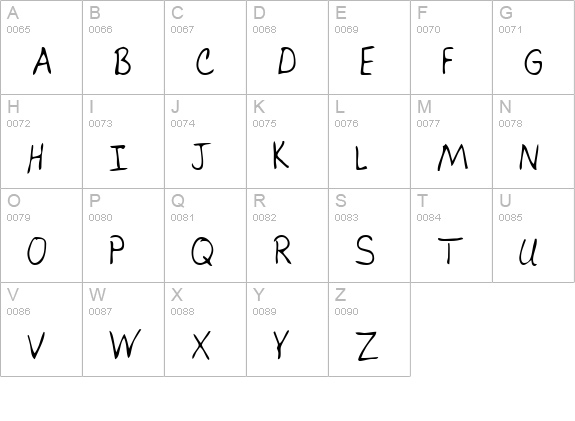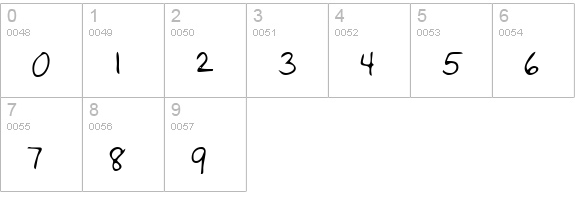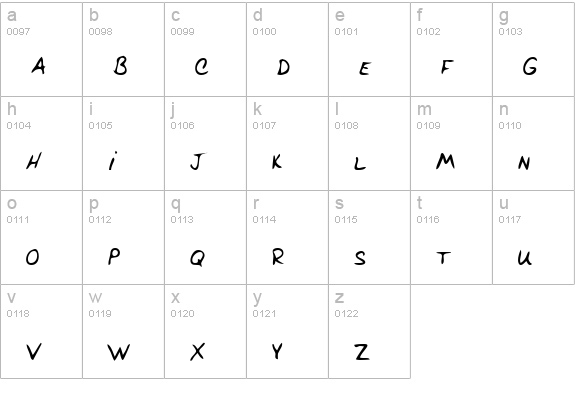
BrucesHand Regular Font Details
BrucesHand Regular is the standard, neutral variant in the BrucesHand typeface family \xE2\x80\x94 well suited to general body text, paragraphs, and standard typographic work.
BrucesHand Regular font is a charming and versatile typeface that exudes a sense of friendliness and warmth. Its handwritten style adds a personal touch to any design project, making it perfect for greeting cards, invitations, and creative branding. This font features a balanced combination of smooth curves and slightly irregular letterforms, giving it a unique and organic look. Best of all, BrucesHand Regular font is available for free download at FontsMarket.com. Whether you're a designer looking to add a touch of handcrafted appeal to your work or someone in need of a casual and approachable font for personal projects, BrucesHand Regular is a fantastic choice. Download it today and bring a touch of handmade charm to your designs!